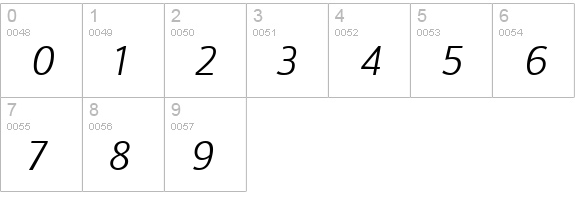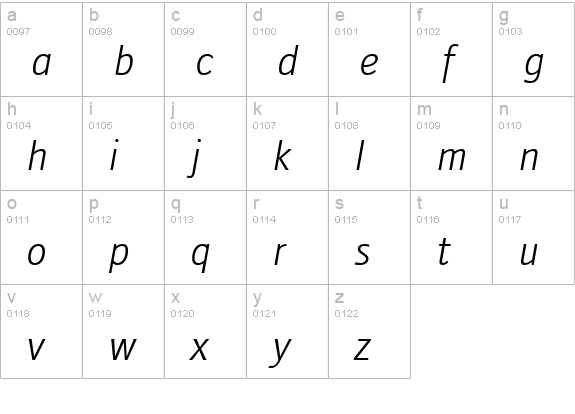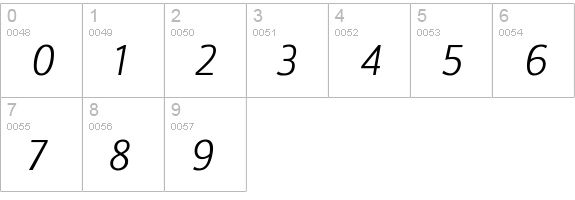
Doradani Lt Italic is a distinctive, italic variant in the Doradani typeface family \xE2\x80\x94 well suited to design and typography projects.
Doradani Lt Italic font is a sleek and elegant typeface that exudes sophistication and modernity. With its slanted design and delicate curves, this font adds a touch of style to any project. The Lt Italic variant of Doradani features a subtle lean and flowing lines, making it perfect for conveying a sense of movement and dynamism. What sets Doradani Lt Italic font apart is that it is completely free to use. Whether you're working on a personal project or a professional assignment, this font is a versatile choice that will elevate your design. You can easily download Doradani Lt Italic font for free at FontsMarket.com, where you'll find a wide range of high-quality fonts for all your creative needs. Don't miss out on this opportunity to enhance your designs with the beauty and sophistication of Doradani Lt Italic font.